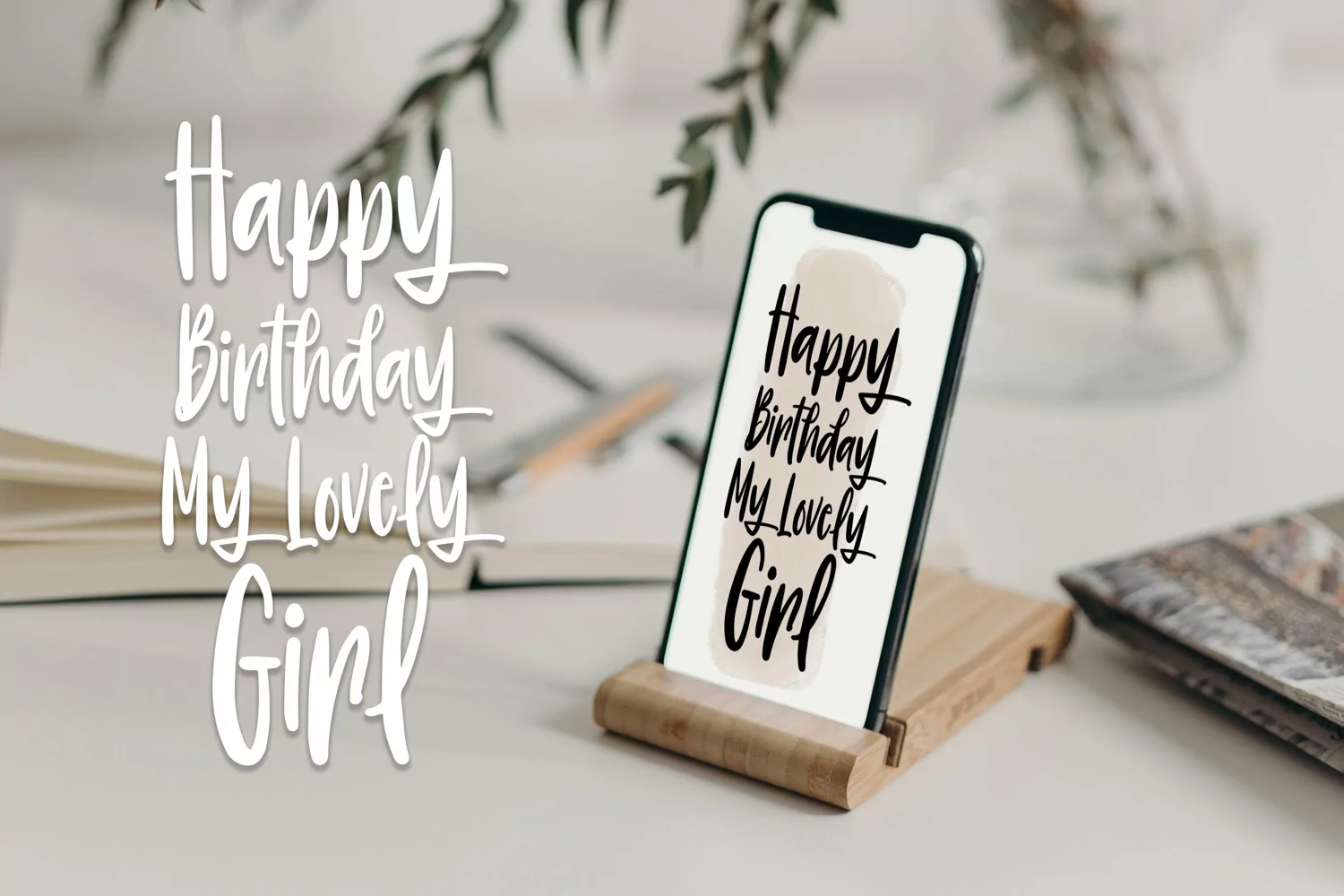
Happy Lovesweet - Quirky Handlettering Font that contain lowercase, uppercase, symbol, and also support multi language. There’s a lot ligatures in this font. This Font also comes with ligatures, alternates and many more. this font suitable for fashion, branding, catalog and other design what you want.
Happy Lovesweet